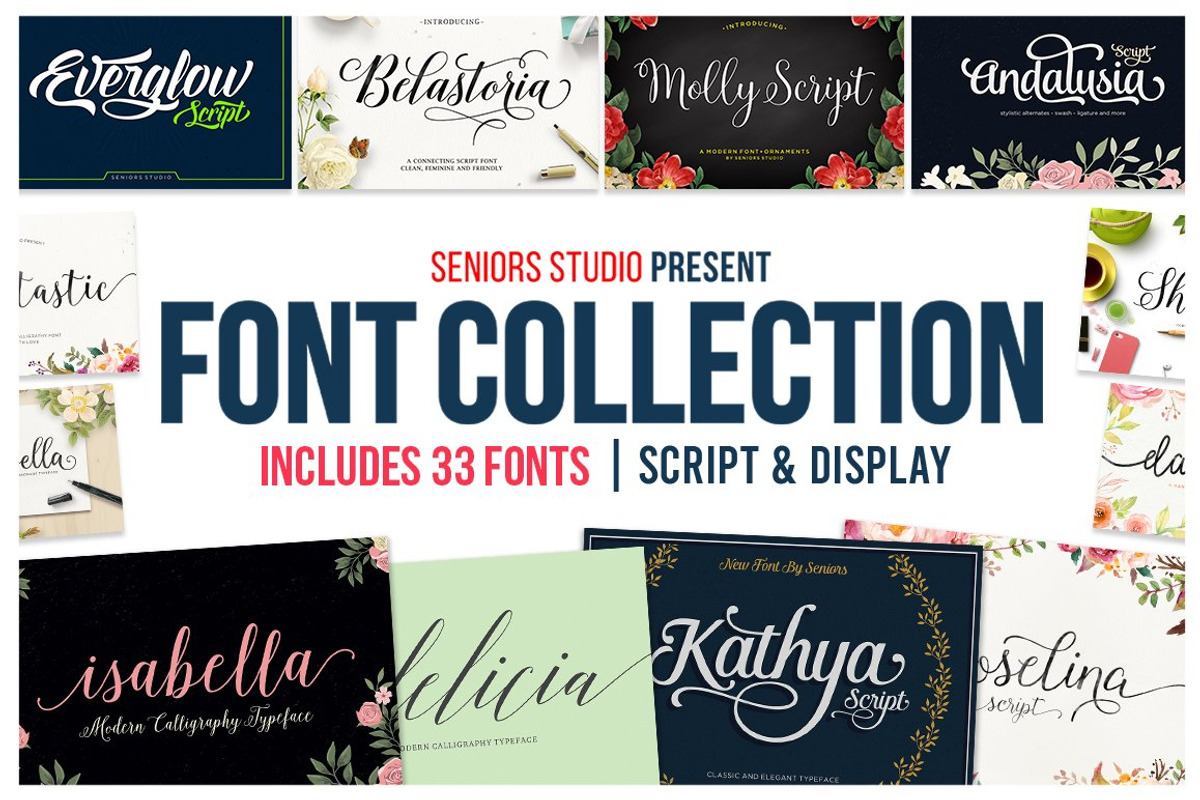
A diverse and versatile bundle, Font Collection | 33 Fonts Free Download offers a curated selection of 33 different fonts, each with its own unique style and personality. Perfect for a wide range of design projects, from logos and branding to social media graphics, posters, packaging, and more, this collection has something for every creative need.
With a mix of serif, sans-serif, script, and display fonts, you'll find everything you need to create beautiful typography for both professional and personal projects. Whether you're working on a vintage design, modern branding, or playful invitations, this collection gives you the flexibility to bring your ideas to life.